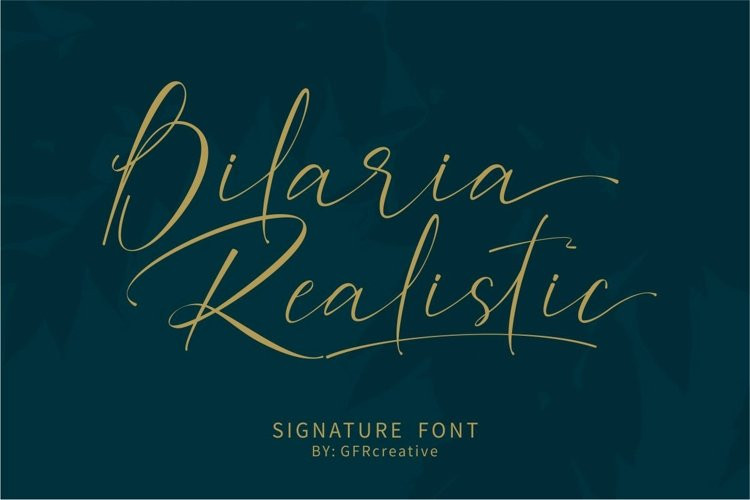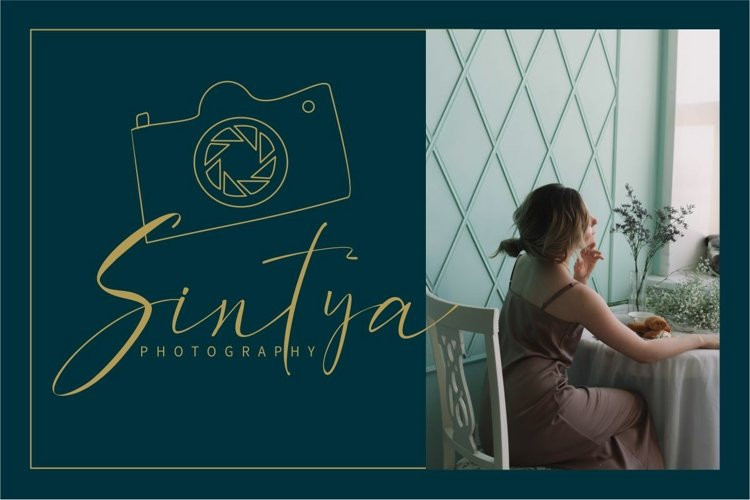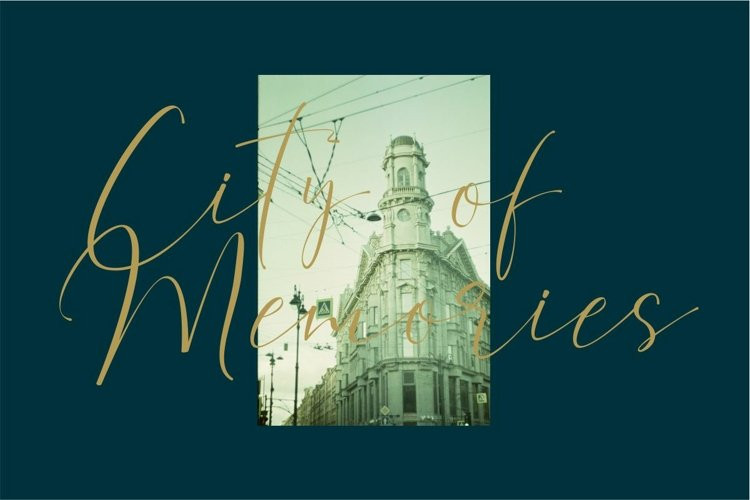
Bilaria Realistic Font
Bilaria Realistic FontBilaria Realistic is signature that appears with style and character.
A very suitable font to use in many ways for your latest projects.
Perfect for logos & branding, photography, invitations, watermarks, advertisements, product designs, stationery, wedding designs, labels, product packaging, special events or anything that requires signature content.
Also available for some lowercase characters that have swash endings, punctuation marks, numbers, and extensive language support